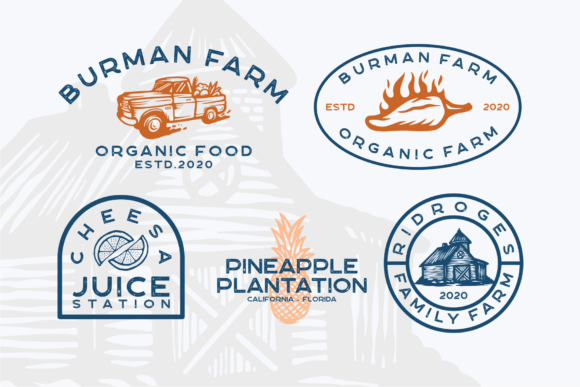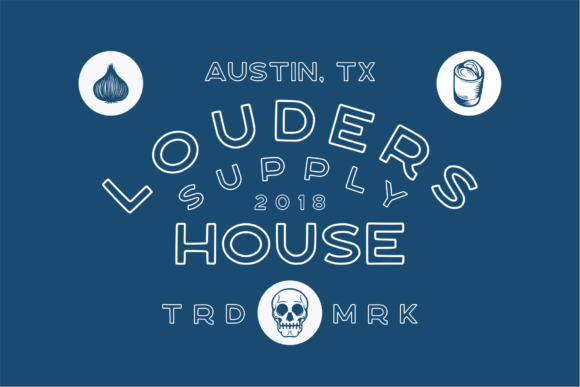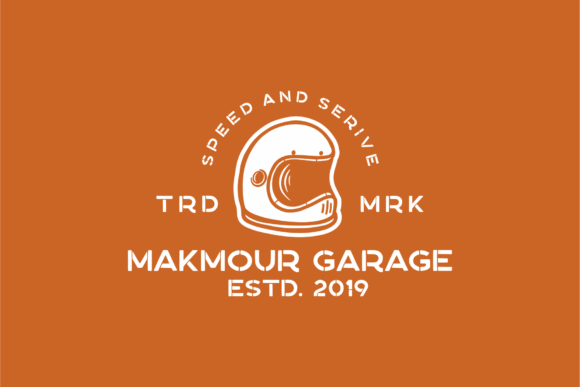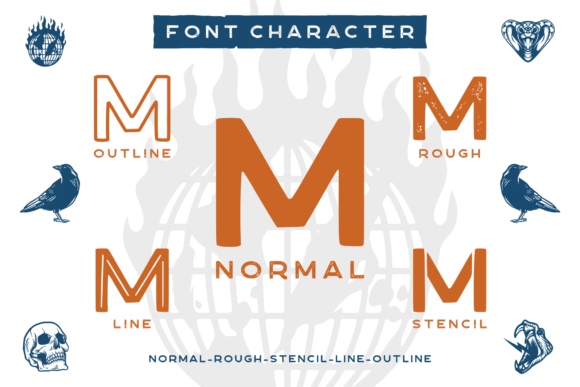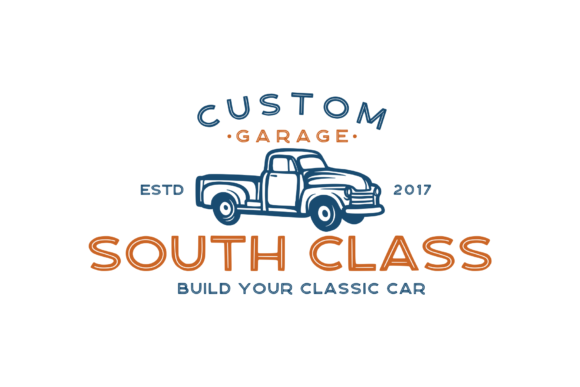
Introduction to Mondresh Font
Have you ever been working on a creative project, staring at a blank page or screen, and suddenly, the perfect font pops into your mind? For designers, finding that perfect font can be the difference between a project that shines and one that falls flat. For us, that font is the Mondresh Font – a stunning sans serif font that brings a rugged touch to any design.
With its five distinct styles, Mondresh Font offers endless possibilities for designers. From branding and headings to wedding designs and invitations, this versatile font can elevate any project to new heights. And the best part? It’s available for free download, making it an invaluable resource for designers of all levels. Whether you’re working on a high-quality design or just starting out, Mondresh Font is a must-have in your design arsenal.
Key Features of Mondresh Font
- High-quality, professional font ideal for creative projects and design resources.
- Features a unique, modern design with a transparent background, allowing for versatile usage.
- Supports a wide range of languages, making it a valuable resource for international design projects.
- Perfect for designers seeking a modern, high-quality font for their next creative project.
Honest Review: Mondresh Font
As a designer, I’m always on the lookout for high-quality design resources to elevate my creative projects. The Mondresh Font has been a pleasant surprise, and I’m excited to share my thoughts with you.
- Modern and sleek design: The Mondresh Font has a unique aesthetic that’s perfect for modern designs. Its clean lines and minimalist style make it a great choice for creative projects that require a touch of sophistication.
- Transparent background: The font’s transparent background makes it easy to customize and integrate with any design. This feature is particularly useful when working with complex layouts or layered designs.
- Limited font styles: While the Mondresh Font is a great choice for modern designs, it may not be suitable for projects that require a wide range of font styles.
- Not suitable for body text: Due to its unique design, the Mondresh Font may not be the best choice for large blocks of body text.
Overall, I’m impressed with the Mondresh Font’s quality and versatility. It’s a great addition to any designer’s toolkit, and I’m happy to recommend it for creative projects that require a touch of modern flair.
The Mondresh Font is suitable for a wide range of creative projects, including logos, business cards, brochures, and presentations. Its high-quality design and transparent background make it an ideal choice for designers looking for a versatile and effective design resource.